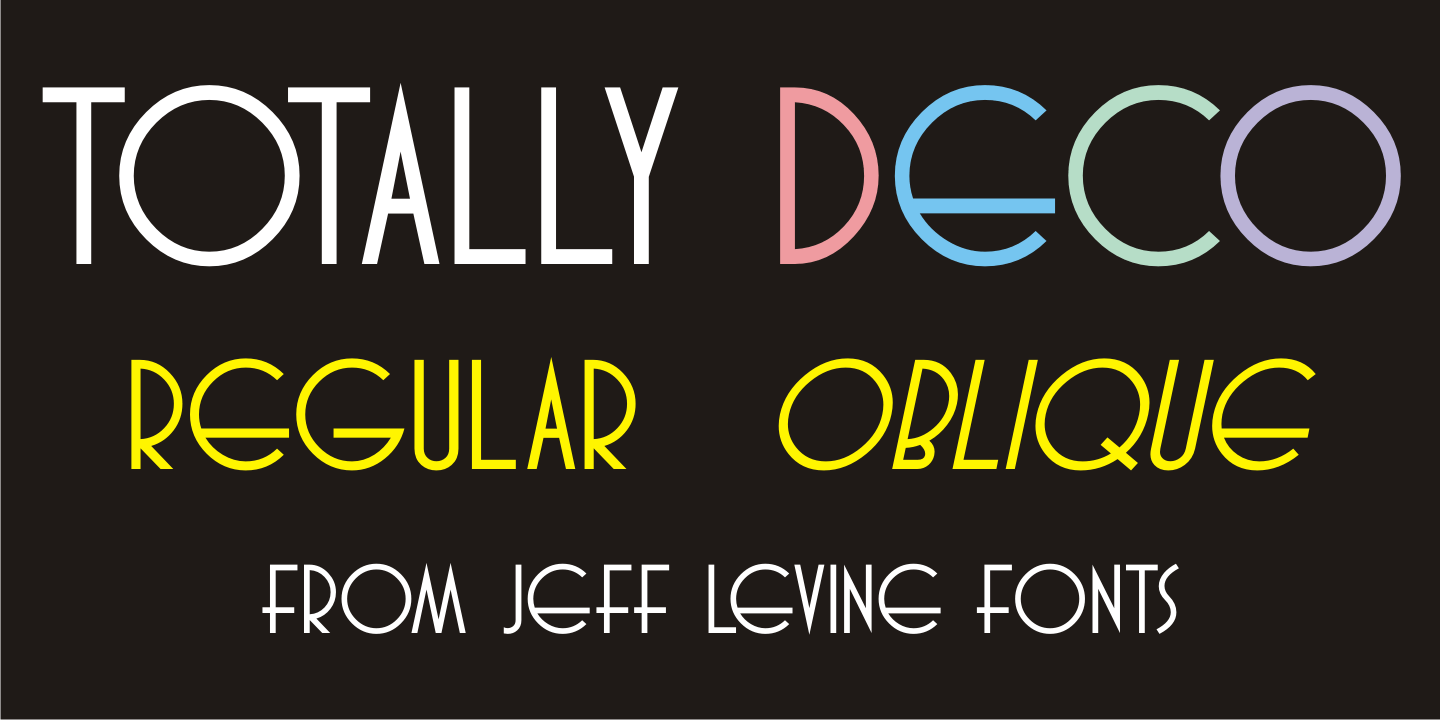
Totally Deco
The hand lettered title found on the sheet music for 1938's 'So Help Me (If I Don't Love You)' was the basis of Totally Deco JNL, which is available in both regular and oblique versions.
A classic mix of widely rounded letters and condensed letters typifies the design style of the Art Deco era.